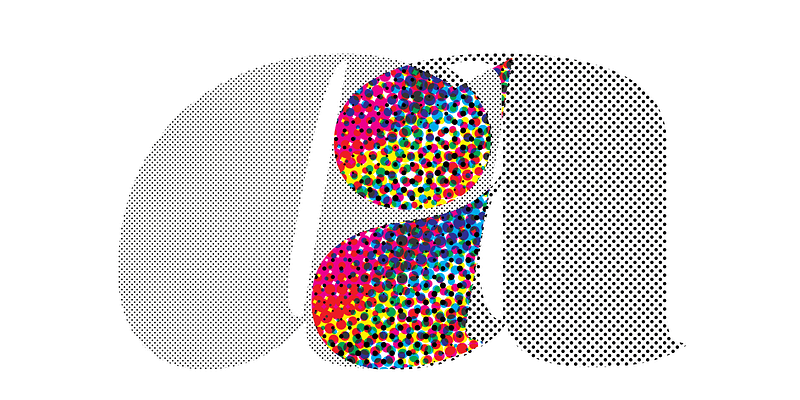
Courage Font excels in various design applications including inspirational branding, motivational poster designs, heroic movie titles, brave advertising campaigns, bold corporate identities, fearless event materials, courageous book covers, and empowering social media graphics. This brave typeface adapts powerfully to both inspiring digital platforms and motivational print materials, making it perfect for designers seeking heroic strength and fearless sophistication in their visual communications.
Courage Font generates excitement among design professionals due to its brave character and heroic styling that instantly conveys strength and fearless determination. The font's bold letterforms and courageous proportions create an immediate sense of bravery and inspirational power. Its heroic personality makes it particularly appealing for brands wanting to communicate courage, strength, and fearless leadership in their visual identity.
The Courage Font family includes multiple weights and styles such as Regular, Bold, Light, Heroic, and Condensed variations. Each family member maintains brave design principles while offering distinct courageous characteristics. The Light weight provides subtle brave elegance for inspiring applications, while the Heroic version delivers maximum impact for fearless headlines and courageous brand statements.
Inspirational designers frequently choose Courage Font Free Download for projects requiring both heroic authenticity and brave distinction. This typeface demonstrates exceptional effectiveness across motivational industries including leadership organizations, fitness brands, adventure companies, and inspirational movements. Its courageous character allows organizations to communicate bravery while maintaining excellent readability and heroic visual appeal that inspires audiences to embrace courage and pursue fearless action in their personal and professional lives.